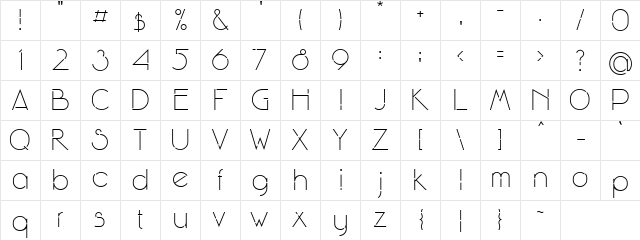
Winsgate18 Winsgate18
| Designer | Richie Riky |
Design Context for Winsgate18 Typeface
Winsgate18 offers clean, dependable letterforms without strong stylistic allegiance, making it a practical choice for designers who need flexibility.